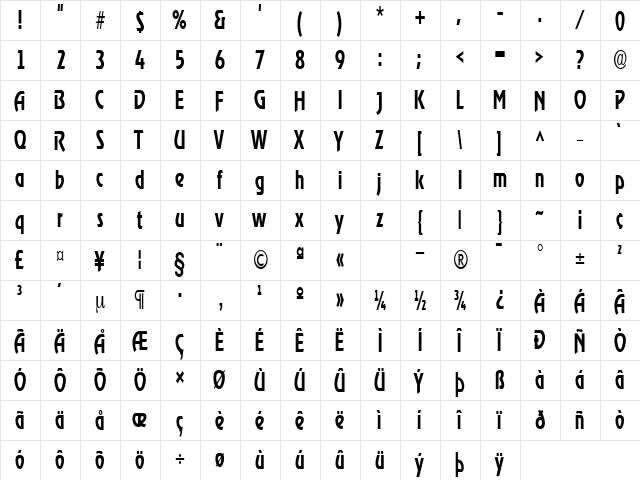
XanadauCondensed Regular
Design Context for XanadauCondensed Typeface
XanadauCondensed offers clean, dependable letterforms without strong stylistic allegiance, making it a practical choice for designers who need flexibility. The condensed width makes it efficient for tight spaces without sacrificing legibility.